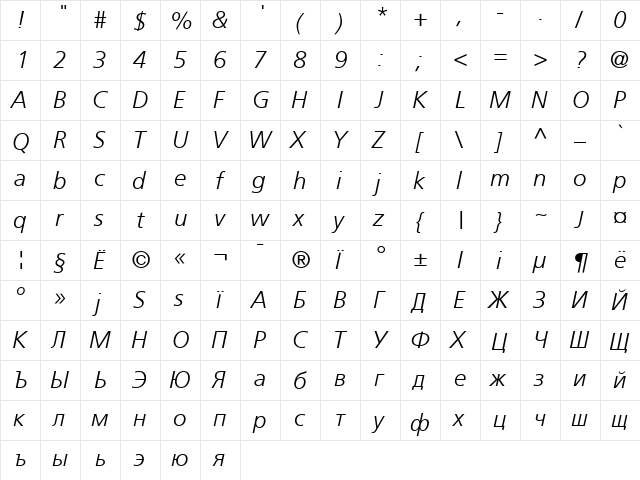
AG Foreigner Light-Italic Medium
Design Context for AG Foreigner Light-Italic Typeface
AG Foreigner Light-Italic is a composed and adaptable typeface that performs quietly and consistently across a wide range of design contexts. Its italic angle brings a sense of urgency and motion to the letterforms. The delicate stroke weight brings airiness and refinement to layouts.
Pro Tip: Use AG Foreigner Light-Italic for emphasis, pull quotes, and subheadings where its slanted energy can add rhythm to the layout.